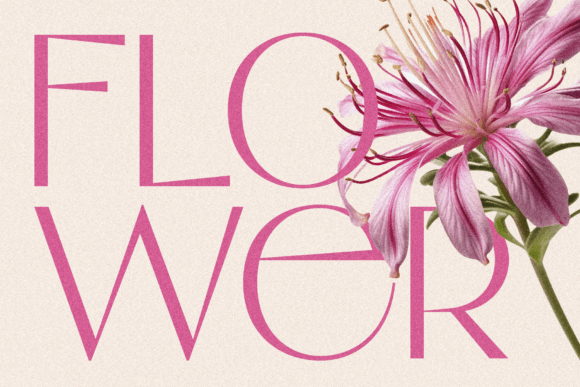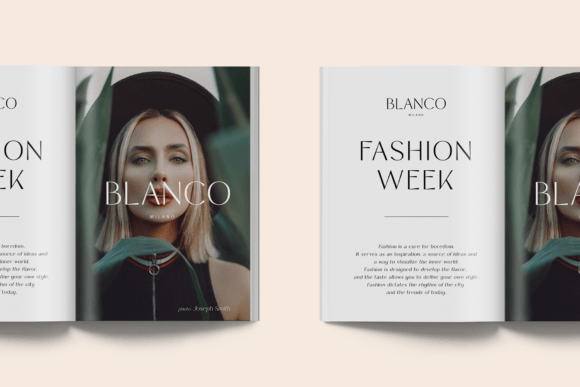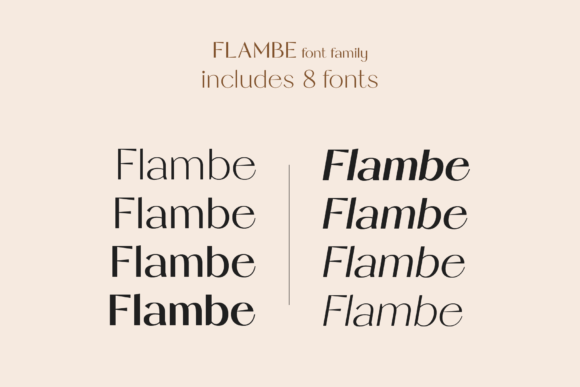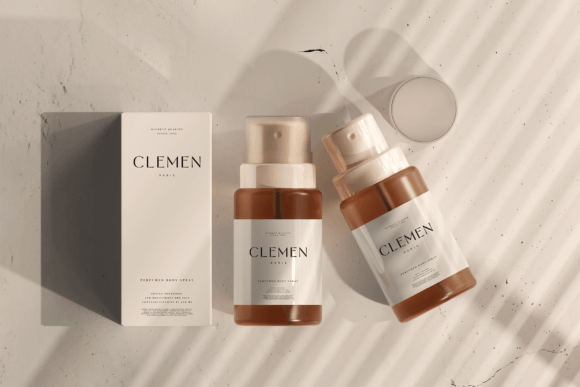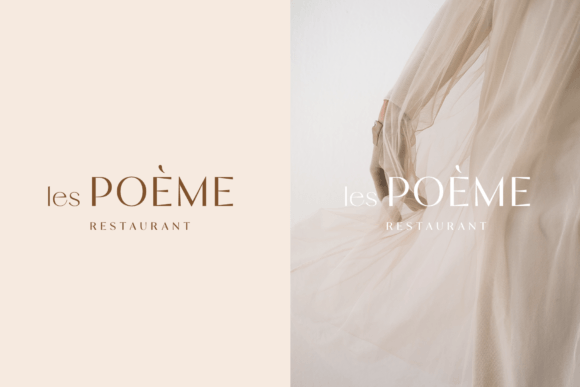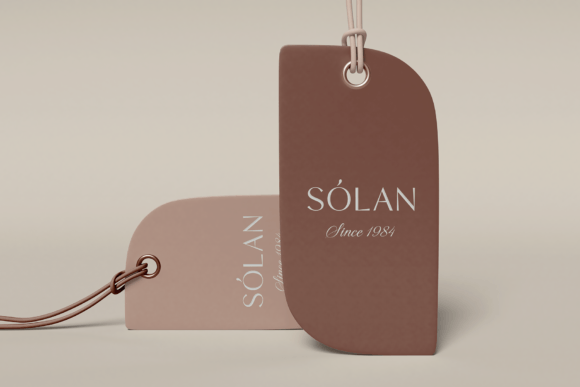
Introducing Flambe Font: Elevate Your Design with Elegance and Modernity
In the world of typography, a font can make or break a design. For designers and crafters looking for a stylish and versatile solution, Flambe Font is an excellent choice. This elegant, modern, and expressive contrast sans-serif font family is perfect for a wide range of projects, from fashion and advertising to packaging and editorial design.
What is Flambe Font?
Flambe Font is a carefully crafted font family that boasts a unique blend of classic and modern elements. Its contrast sans-serif design gives it a distinctive look that is both sophisticated and trendy. The font comes in two styles: upright and italic, each with four weights ranging from light to bold. This versatility makes Flambe Font suitable for various applications, from headings and titles to body text and descriptions.
Key Features of Flambe Font
- Elegant and Modern Design: Flambe Font’s contrast sans-serif design makes it perfect for fashion projects, editorials, and advertising materials that require a touch of sophistication.
- Multi-Purpose: Use Flambe Font for logos, banners, packaging, book covers, magazines, headings, descriptions, and more.
- High Readability: The font’s clear and clean design ensures excellent readability, making it suitable for both print and digital media.
- Variety of Weights: With four weights (light to bold) in two styles (upright and italic), Flambe Font offers flexibility and creative freedom.
Perfect for Fashion and Editorial Projects
Flambe Font’s stylish and modern design makes it an ideal choice for fashion projects, such as:
- Fashion brand logos and branding materials
- Editorial spreads and magazine covers
- Advertising campaigns and promotional materials
- Packaging design for luxury products
Its elegant and sophisticated look also makes it suitable for editorial projects, such as:
- Book covers and typography
- Magazine and newspaper headings
- Descriptions and captions
Why Choose Flambe Font?
With so many fonts available, why choose Flambe Font? Here are a few reasons:
- Unique Design: Flambe Font’s contrast sans-serif design sets it apart from other fonts, making it a great choice for designers looking for something distinctive.
- Versatility: The font’s multiple weights and styles make it suitable for a wide range of projects and applications.
- Easy to Read: Flambe Font’s clear and clean design ensures excellent readability, making it perfect for both print and digital media.
Flambe Font is an excellent choice for designers and crafters looking for a stylish, modern, and elegant font for their projects. Its versatility, readability, and unique design make it perfect for fashion, editorial, and advertising applications. With Flambe Font, you can elevate your design and create stunning visual content that stands out from the crowd.